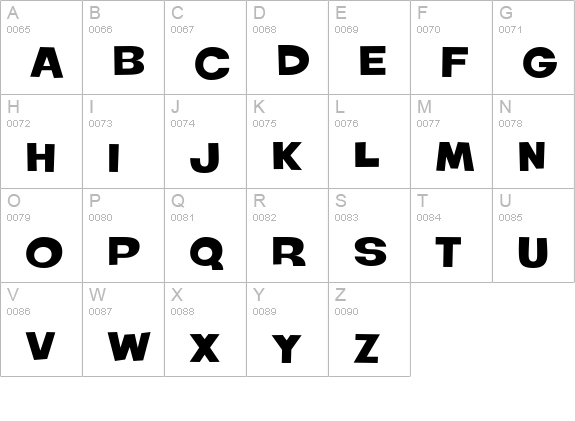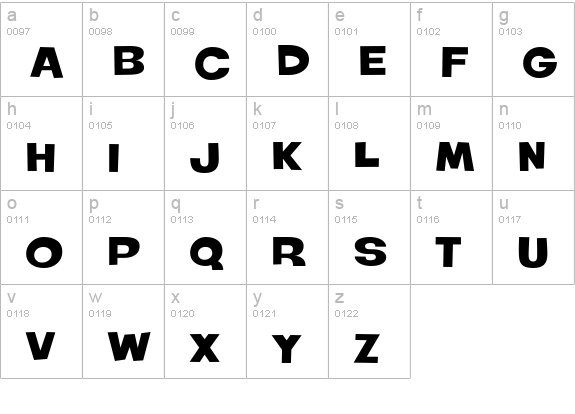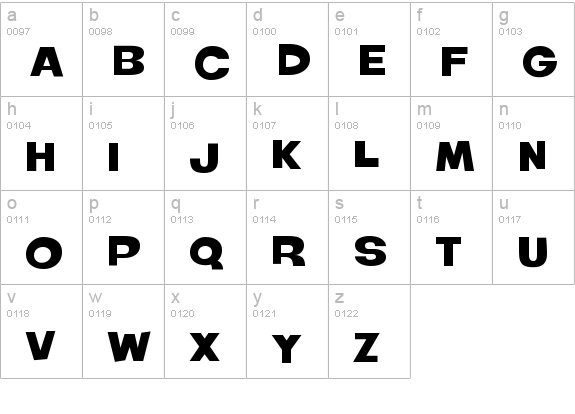
Roller World BTN Wide is a distinctive, extended-width variant in the Roller typeface family \xE2\x80\x94 well suited to design and typography projects.
Roller World BTN Wide font is a bold and attention-grabbing typeface that exudes a sense of energy and playfulness. Its wide letterforms give it a unique and dynamic appearance, making it perfect for headlines, posters, and other display uses. The font's rounded edges and smooth curves add a touch of whimsy and fun to any design project. What makes Roller World BTN Wide font even more appealing is that it is available for free download at FontsMarket.com. This means that you can easily access this versatile and eye-catching font for your creative endeavors without any cost. Whether you're designing a flyer for a roller skating event or creating a logo for a vibrant brand, Roller World BTN Wide font is sure to make your text pop and stand out. Download it today and let your creativity roll freely!